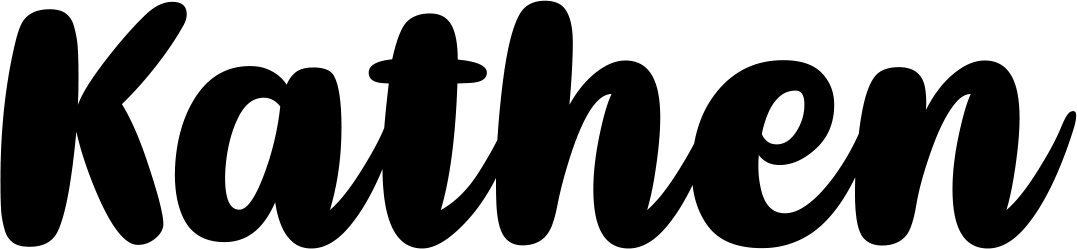
Kathen Font
Need a brush font for your text-based layouts? If so, Kathen can be a great pickup. This one with bold characters works perfectly for logos, headlines, websites, and whatnot. Give it a try and see how stunning it looks.…
Need a brush font for your text-based layouts? If so, Kathen can be a great pickup. This one with bold characters works perfectly for logos, headlines, websites, and whatnot. Give it a try and see how stunning it looks. For more of this category, dive deeper into our boundless library.